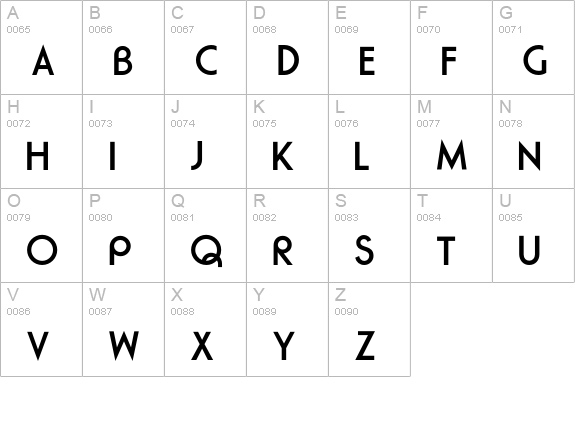
RondaMedium Font Details
RondaMedium font is a versatile and elegant typeface that exudes sophistication and modernity. With its clean lines and balanced proportions, this font is perfect for a wide range of design projects, from branding to editorial design. The medium weight of RondaMedium strikes the perfect balance between readability and style, making it suitable for both body text and headlines. The best part? RondaMedium is available for free download at FontsMarket.com, making it accessible to designers and creatives looking to elevate their projects without breaking the bank. Whether you're working on a website, brochure, or poster, RondaMedium is sure to add a touch of elegance and professionalism to your designs. Download RondaMedium today and bring your creative vision to life with this stunning typeface.